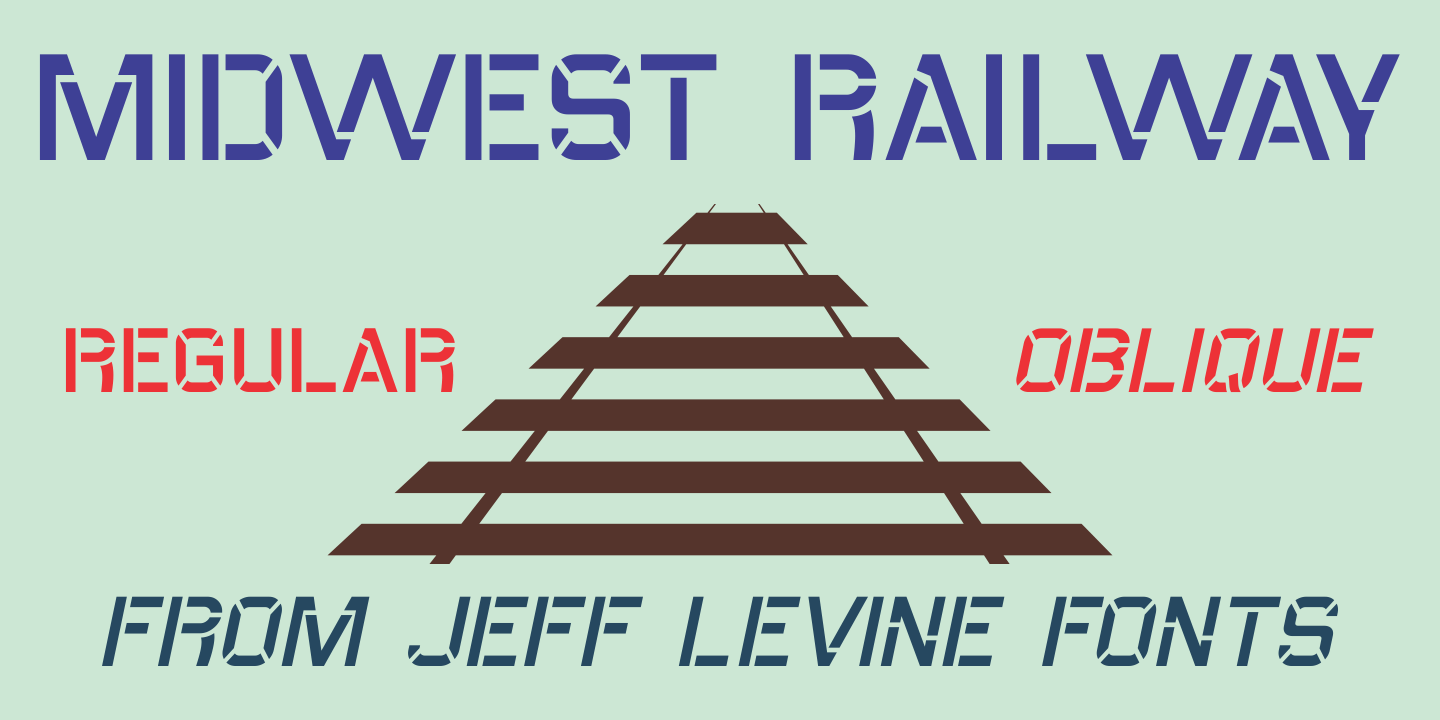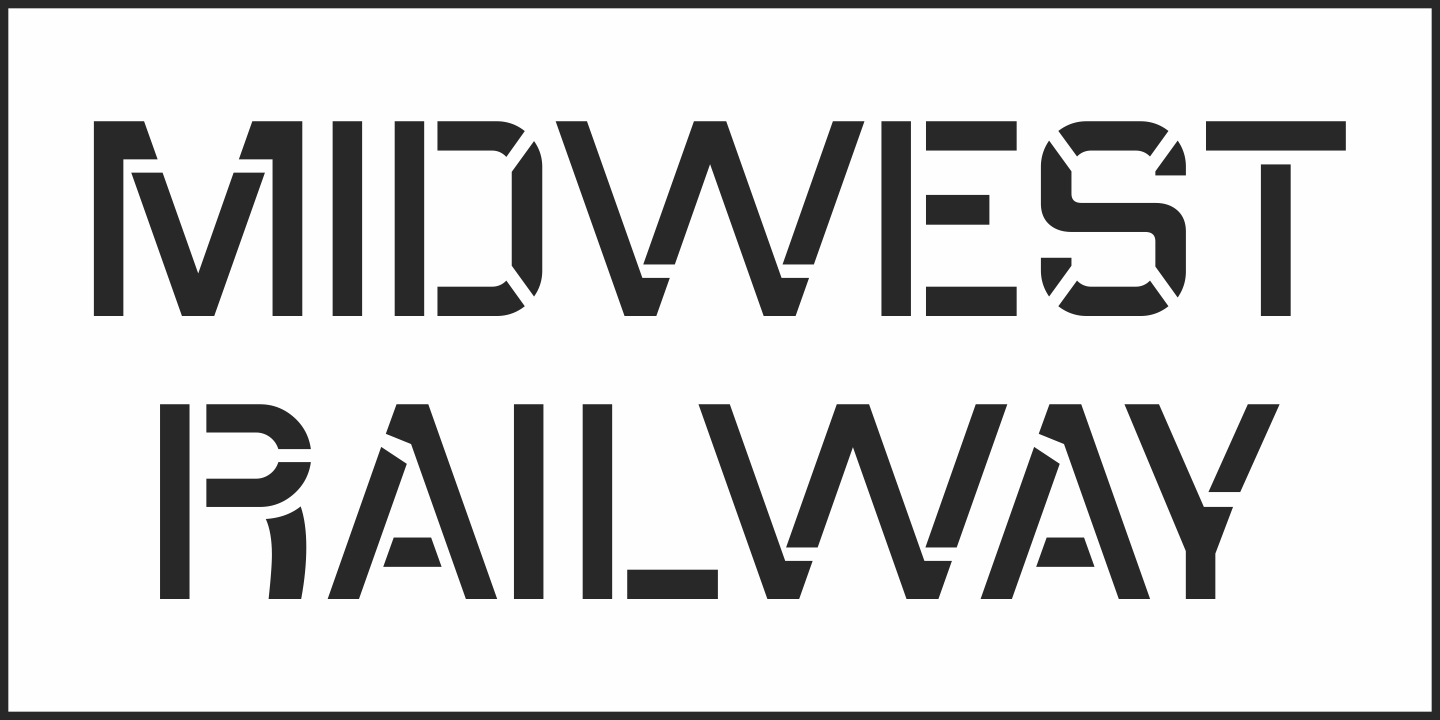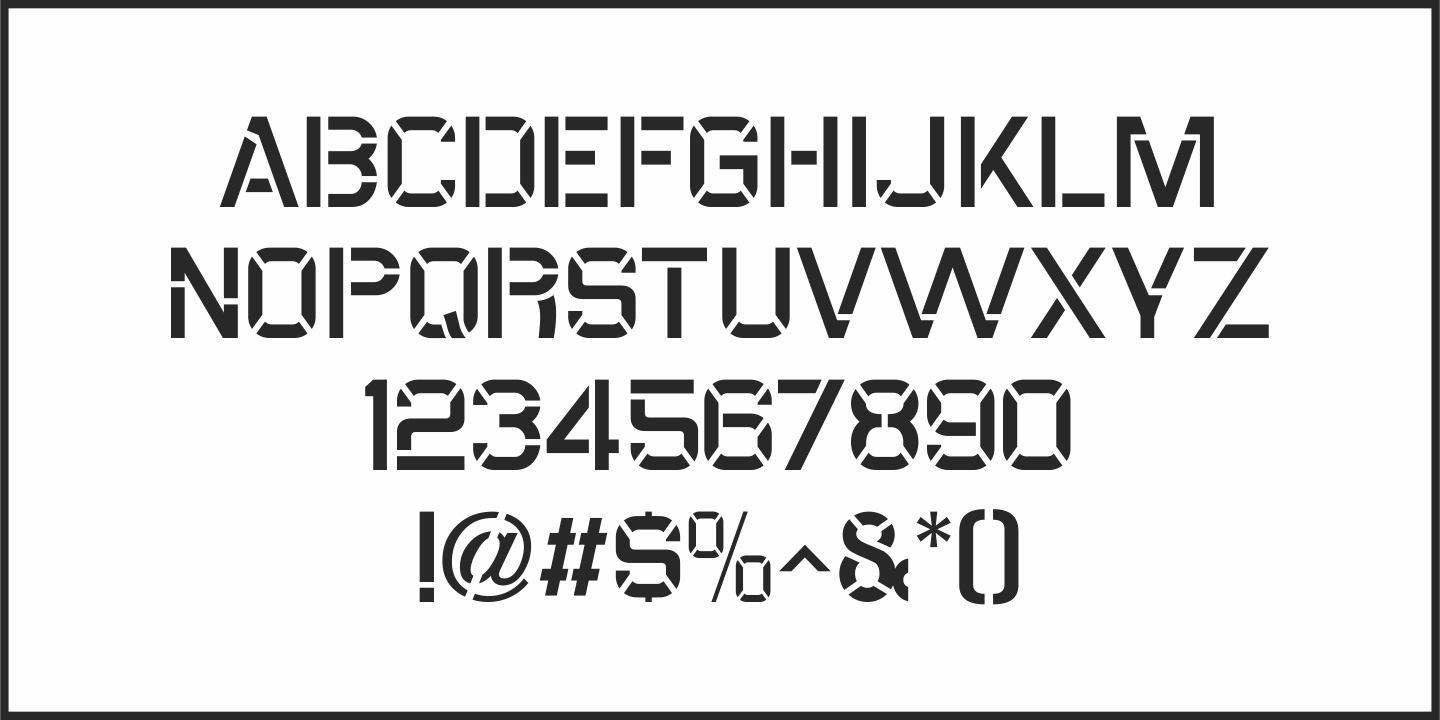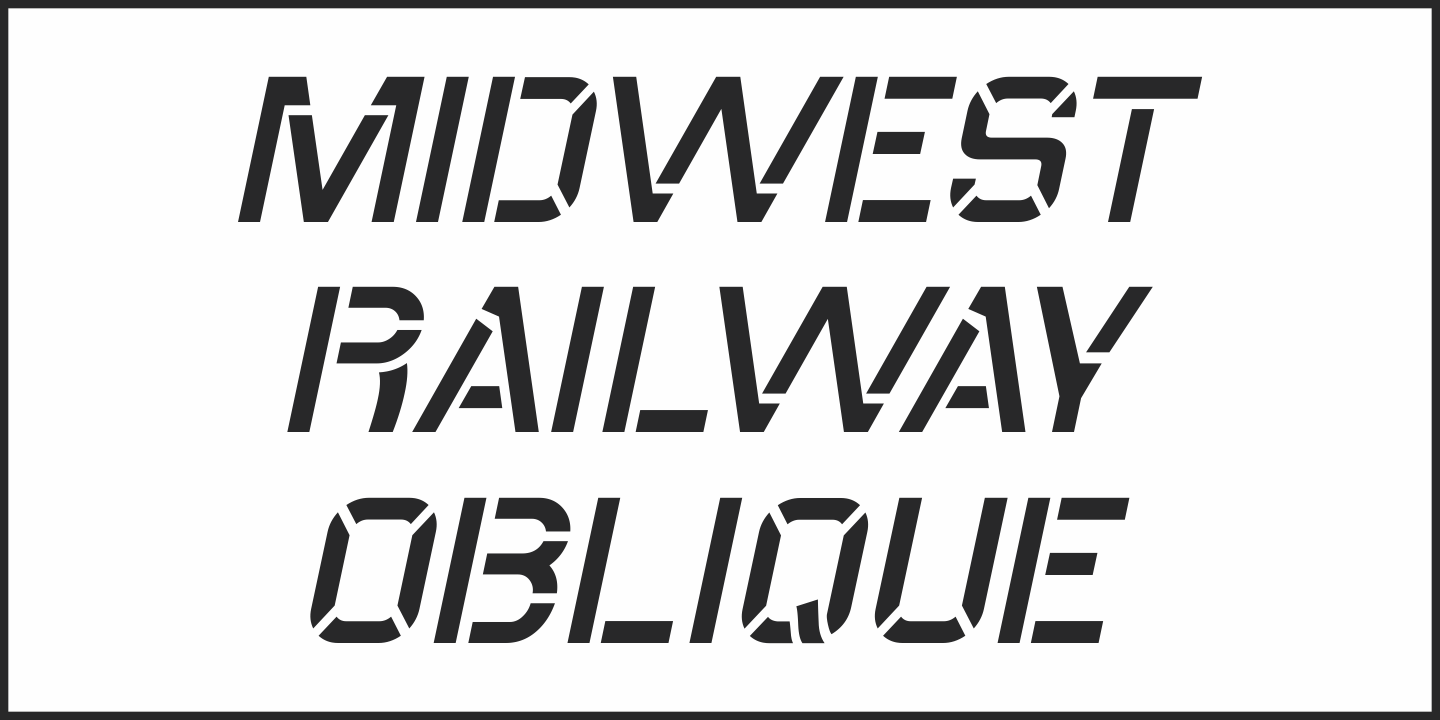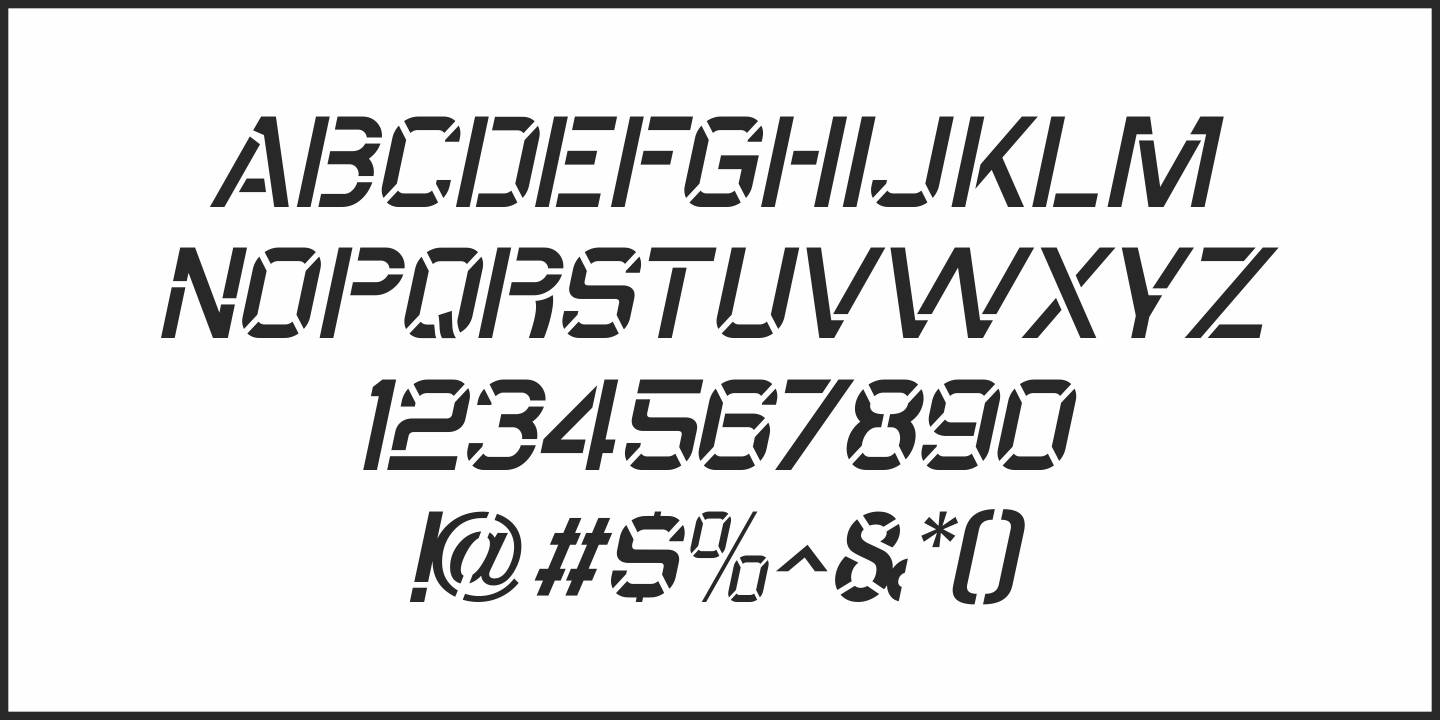
Midwest Railway
An antique, hand-cut metal stencil for the Chicago-Burlington rail route stating 'CB&Q RR – Private Property” inspired the sans serif stencil design Midwest Railway JNL, which is available in both regular and oblique versions.